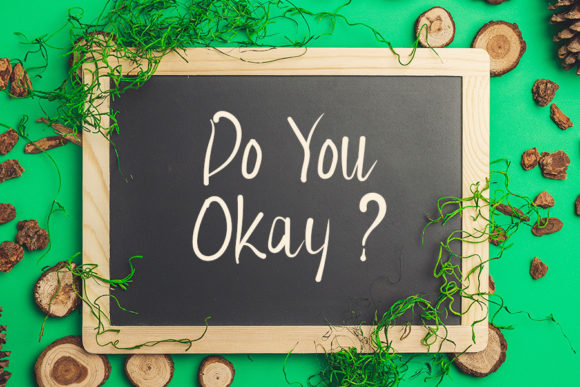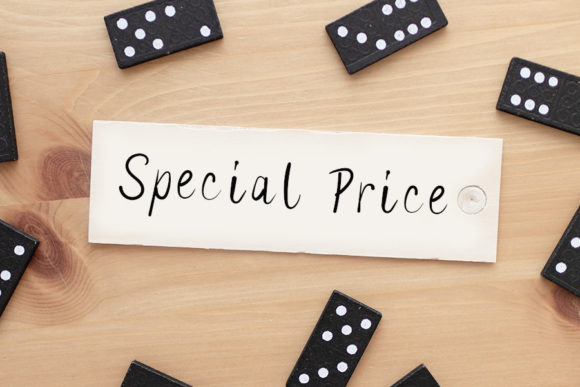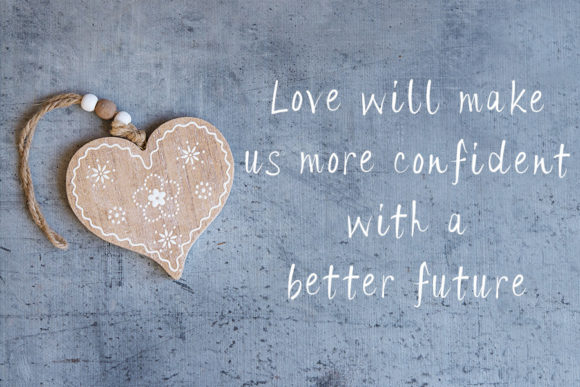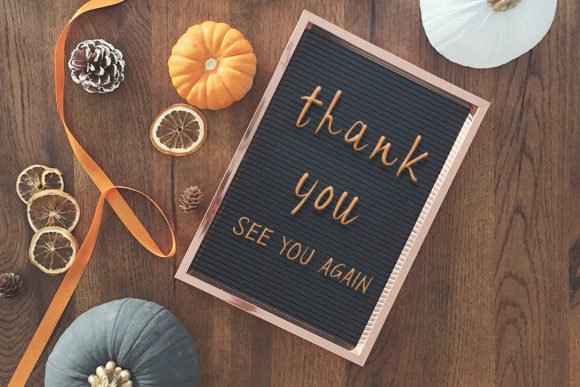
Introduction to Love Shot Font Font
Fonts play a crucial role in design, and the Love Shot Font font is a typeface that brings both character and versatility to any project. Whether you’re working on a branding project, a website, or a print design, the Love Shot Font font offers a unique style that can elevate your work.
Love Shot is a clean and simple handwritten font.
Add this natural and adaptable font to your fontsβ library and employ it to a variety of designs The only limit is your imagination.
Key Features of Love Shot Font Font
Why Choose Love Shot Font Font?
The Love Shot Font font is more than just a typeface β it’s a design tool that helps you communicate your message with style and clarity. Its unique character set and versatile design make it suitable for a wide range of applications, from elegant invitations to bold headlines.
With its carefully crafted letterforms and balanced proportions, the Love Shot Font font ensures readability and visual appeal across all mediums.
What makes Love Shot Font font special?
The Love Shot Font font stands out with its unique design, exceptional readability, and versatility across various design applications.